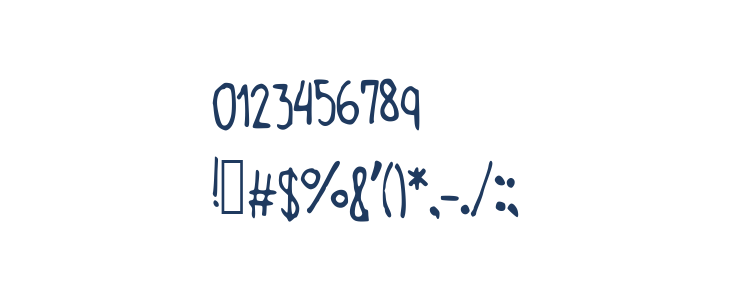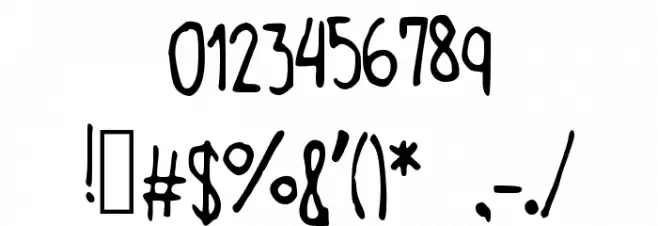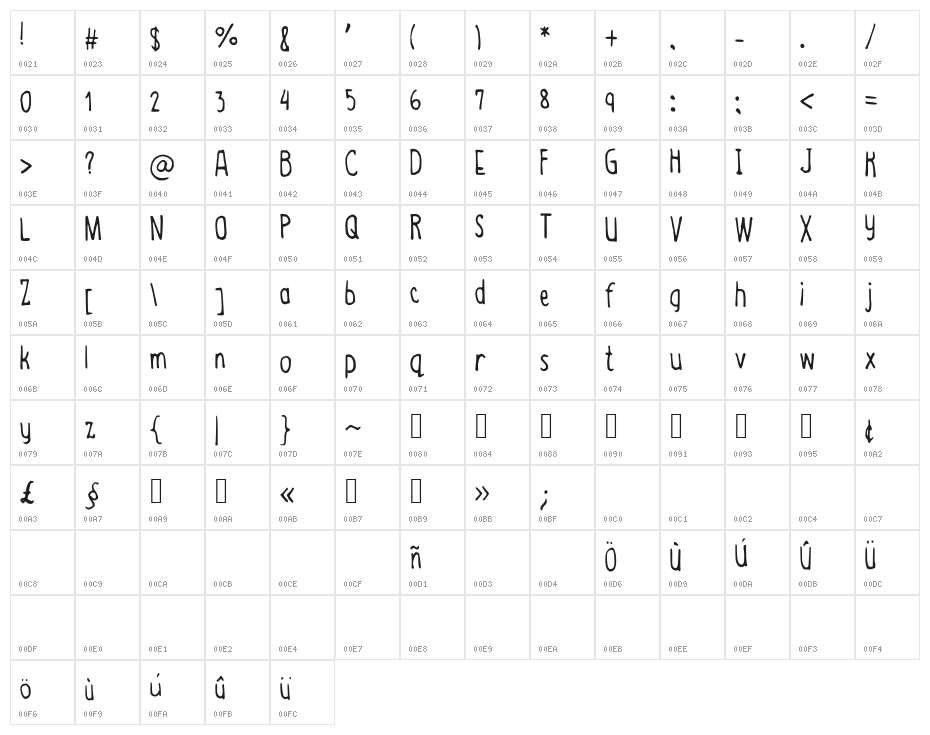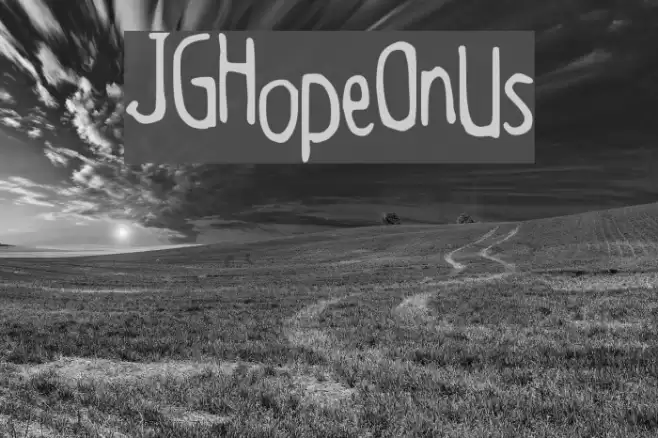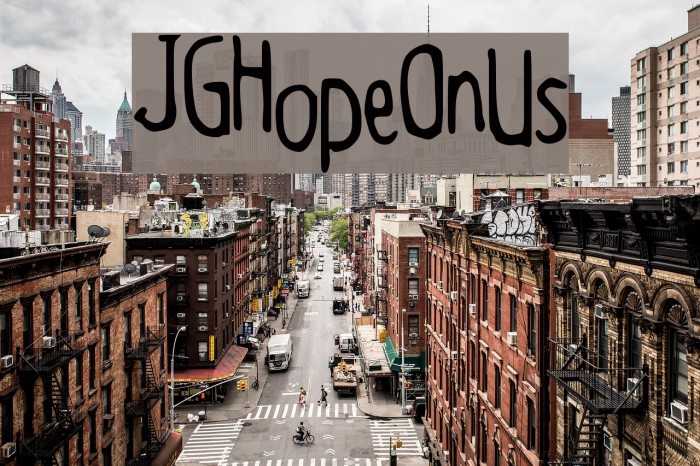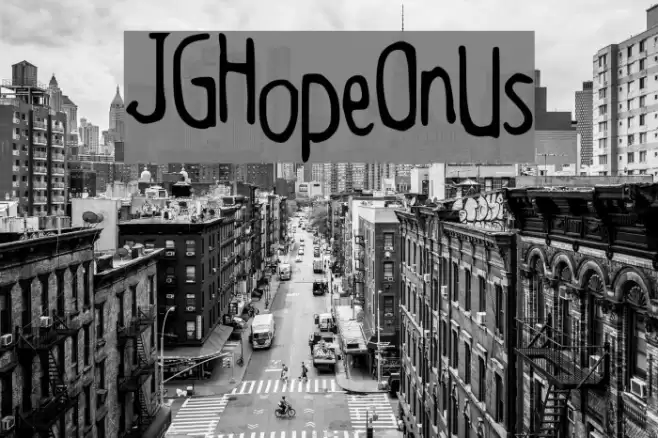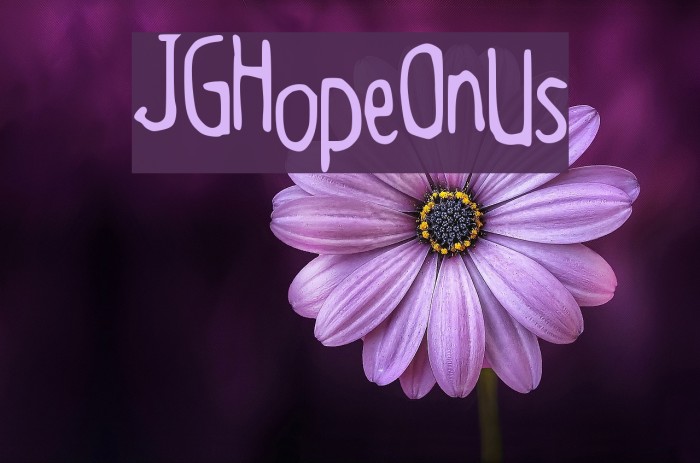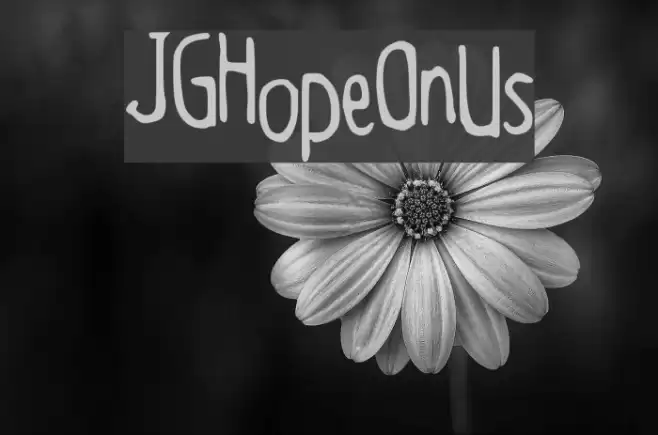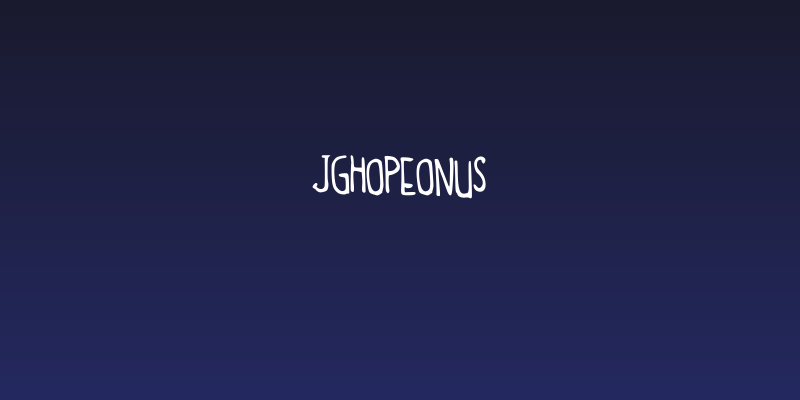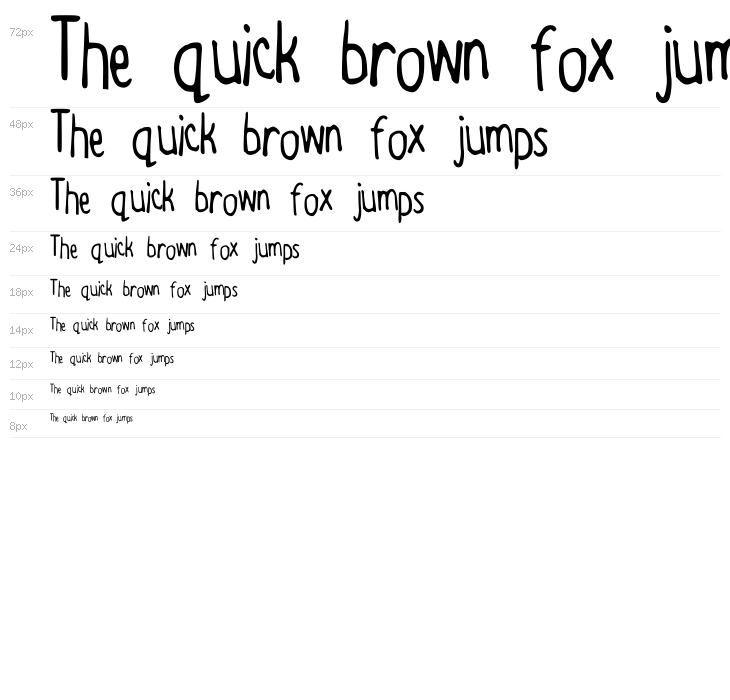
JGHopeOnUs Font
JGHopeOnUs Description
This playful and whimsical font features a handwritten style with a casual and friendly appearance. The characters are slightly irregular, adding a personal touch that mimics natural handwriting. The strokes are smooth and rounded, giving it a soft and approachable feel. The uppercase and lowercase letters are distinct, with a slight slant that enhances its informal nature. The numbers and special characters maintain the same playful aesthetic, making it versatile for various creative projects. The font's overall style is inviting and can be used to convey warmth and creativity.
| Overall Style | Casual and playful |
| Proposed Projects | Ideal for children's books, greeting cards, personal blogs, and creative branding. |